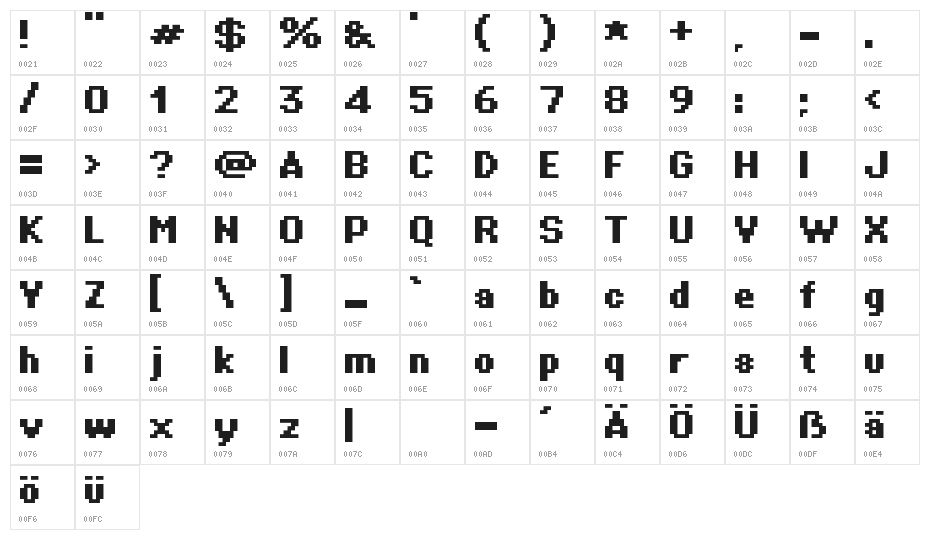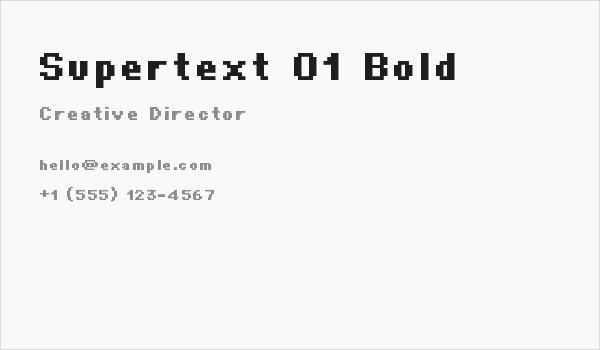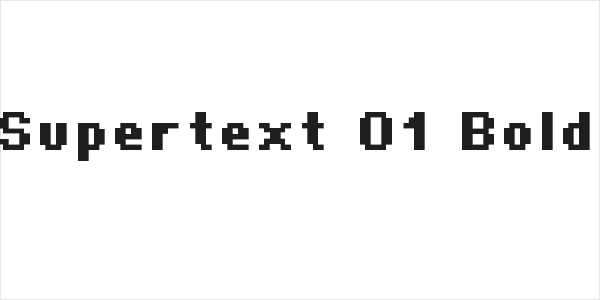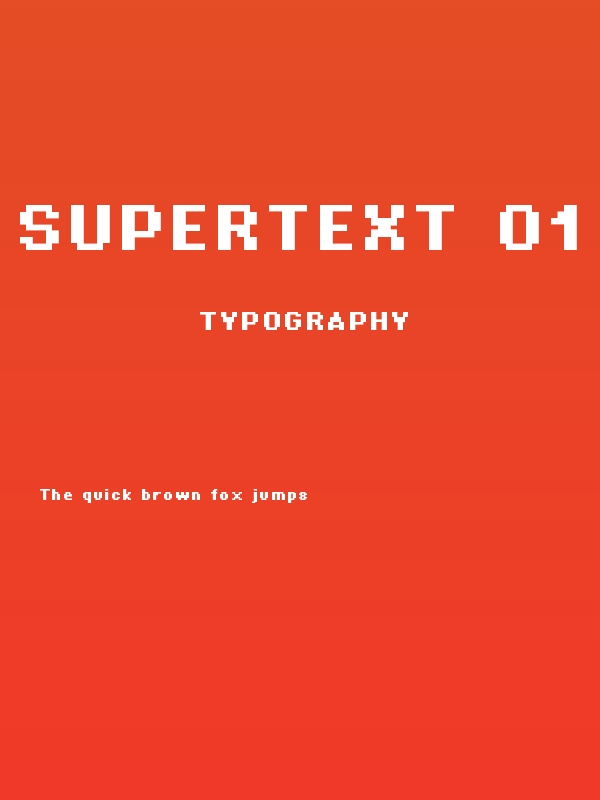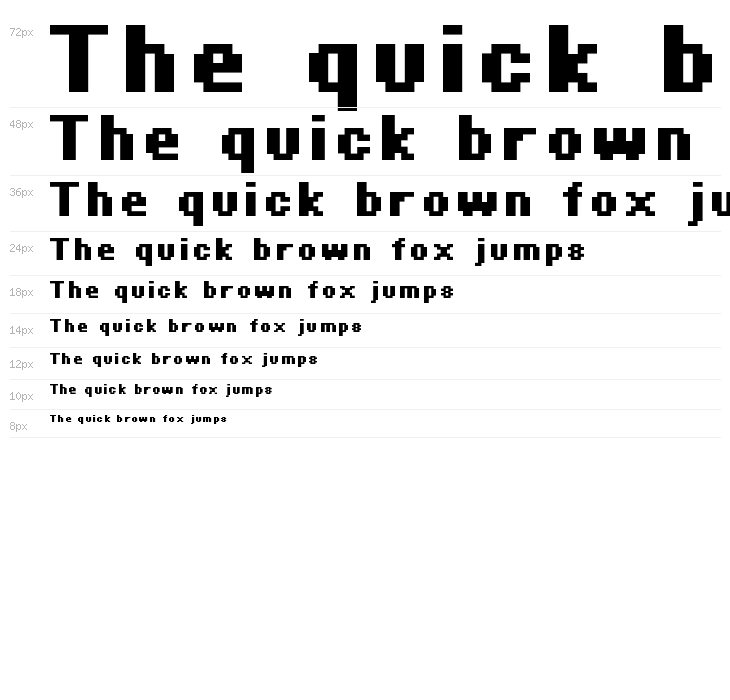
Supertext 01 Bold Font
Supertext 01 Bold Description
This font features a bold, pixelated design reminiscent of early digital displays and classic video game aesthetics. The characters are constructed with a blocky, grid-like structure, giving it a distinctly retro and digital feel. Each letter and number is uniform in width, contributing to a monospaced appearance. The uppercase and lowercase letters maintain a consistent style, with minimal variation in stroke width, emphasizing a low contrast. The special characters are designed to match the overall pixelated theme, ensuring a cohesive look across all glyphs. This font is ideal for projects that aim to evoke nostalgia or a tech-inspired theme.
| Use Case | Logos, Headlines, Digital displays |
| Proposed Projects | Ideal for retro video games, tech-themed posters, digital art, and nostalgic branding. |